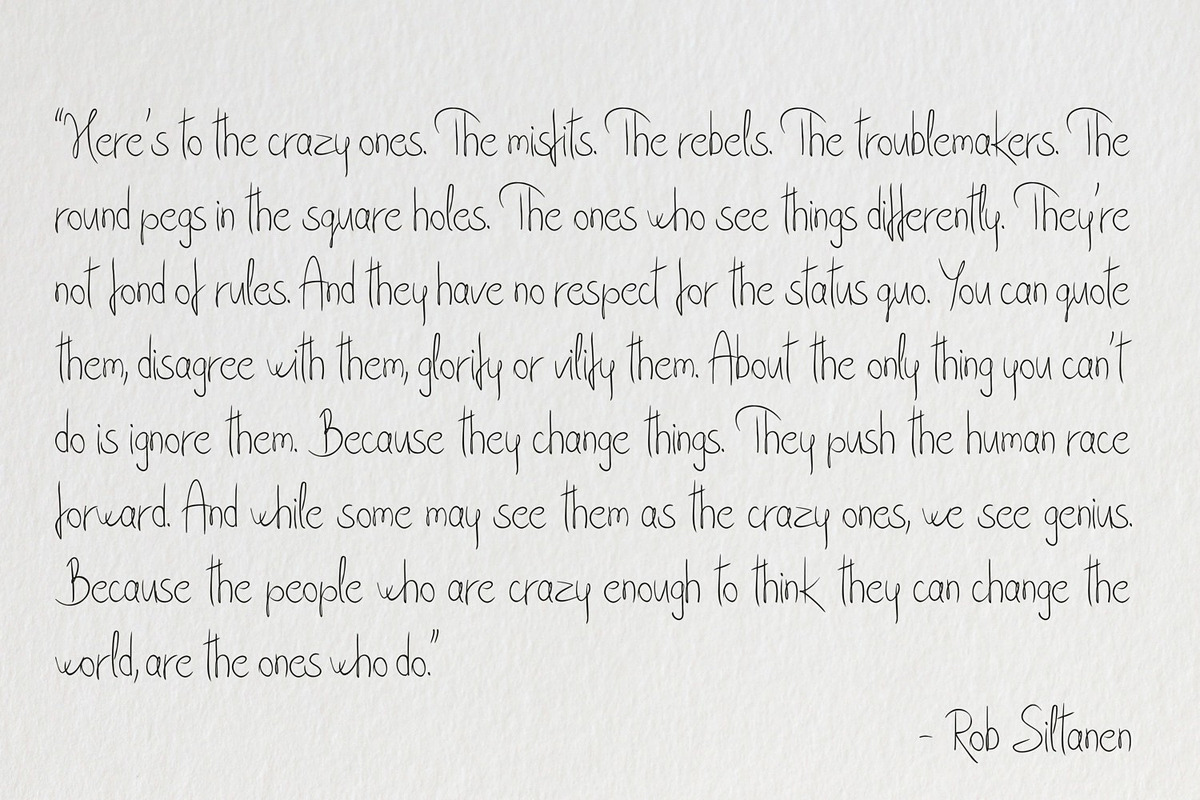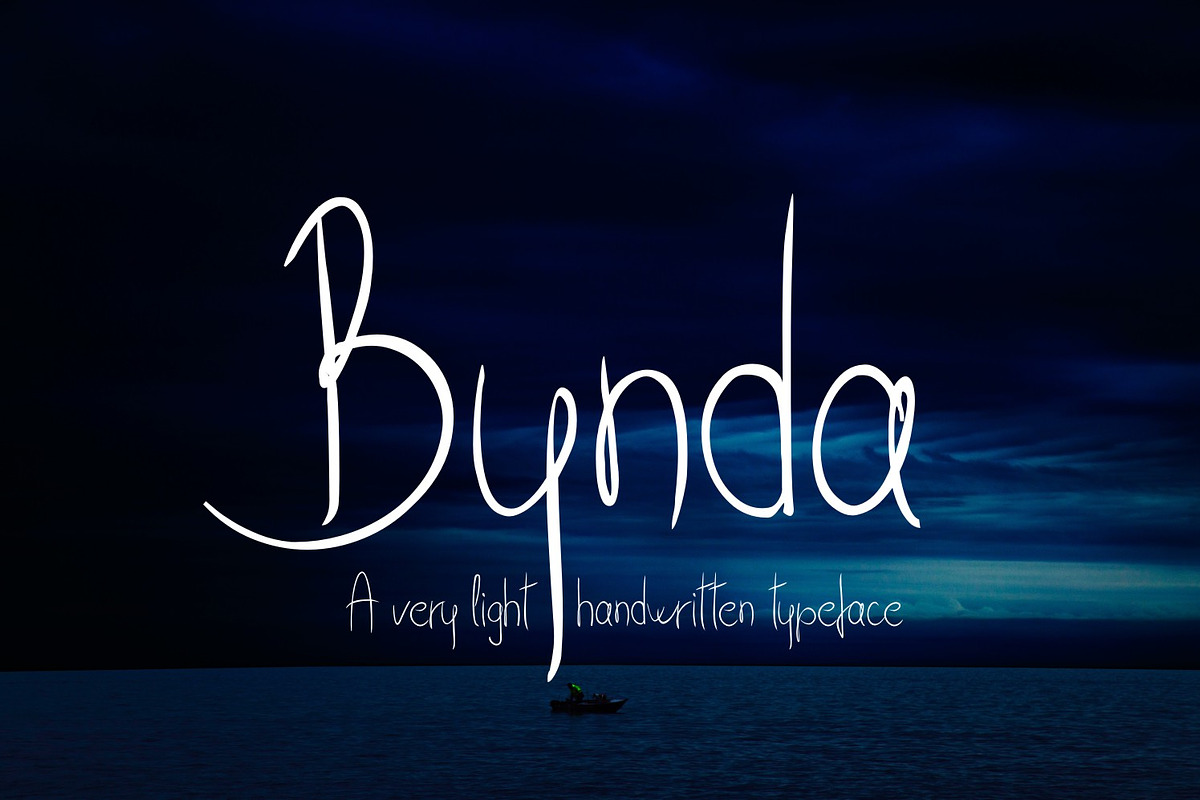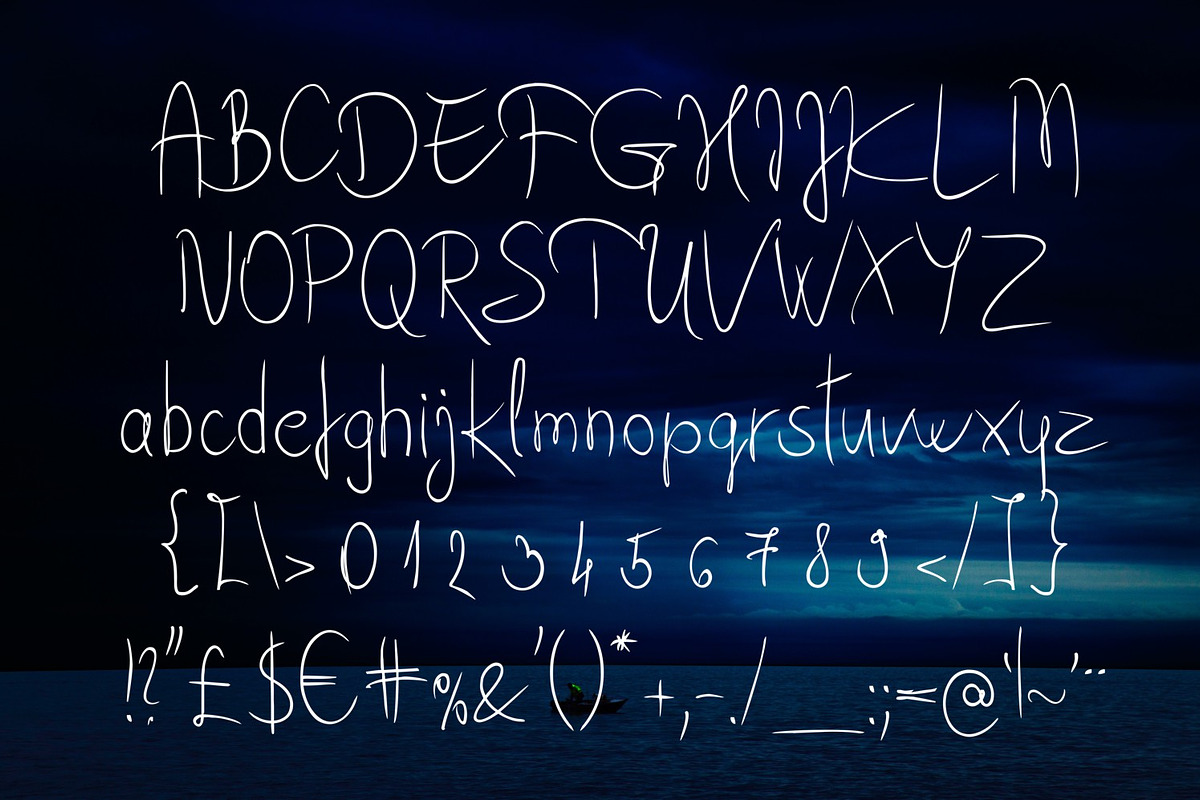
Bynda
Introducing Bynda, a very light handwritten typeface.
Why Bynda is worth a look
Bynda by Digital Typeface Studio fits naturally into Branding, posters, packaging, typography.